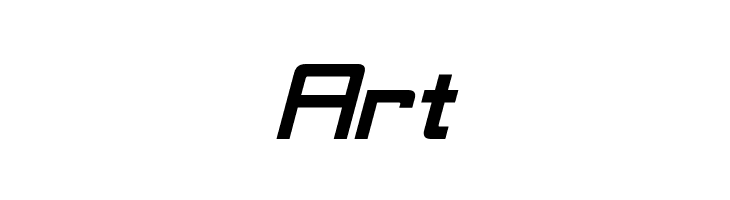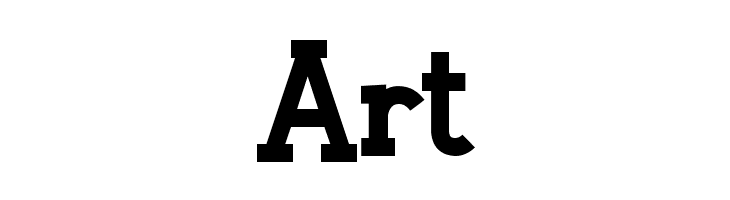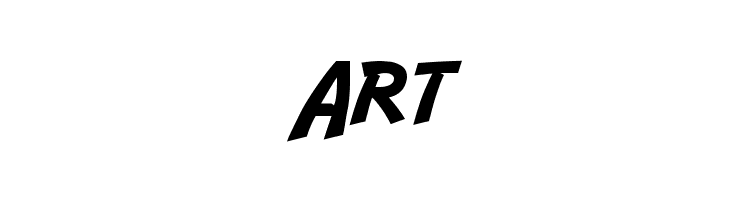
Bold, distressed display font with a rugged, adventurous feel.
A bold, angular font with a dynamic, italicized style.
A bold, rugged font with a hand-drawn, adventurous style.
A bold, italicized font with a modern, adventurous style and geometric structure.
A bold, angular font with a rugged, adventurous style.
A bold, vintage-style font with thick strokes and decorative elements.
A bold, playful font with a 3D striped effect, perfect for adventurous themes.
A bold, modern font with geometric and futuristic design elements.
A bold, decorative font with intricate patterns and a playful, adventurous style.
A bold, hollow font with a dynamic and adventurous style.
A playful, bold font with irregular strokes and a hand-drawn appearance.
A bold, geometric font with a strong, adventurous style.
A bold, italic font with a sporty and modern aesthetic.
A bold, geometric font with a modern and adventurous style.
A bold, geometric font with a modern and cohesive design.
A modern, italicized font with a sleek, futuristic design.
A bold, cursive font with a dynamic and flowing style.
A bold, brush-style font with dynamic, hand-drawn strokes.
A bold, playful font with a hand-drawn, adventurous style.
A jagged, dripping font ideal for spooky themes.
A bold, hand-drawn font with dynamic, playful strokes.
A bold, three-dimensional font with a dynamic and adventurous style.
A bold, geometric font with a futuristic and adventurous style.
A bold, flowing script font with elegant curves and dynamic movement.
A dynamic and elegant cursive script font with bold, flowing letterforms.
A playful, cursive font with interconnected letters and a whimsical style.
A bold, hand-drawn font with a playful and adventurous spirit.
Tall, narrow, handwritten sans-serif with a playful style.
Casual, hand-drawn sans-serif with playful curves.